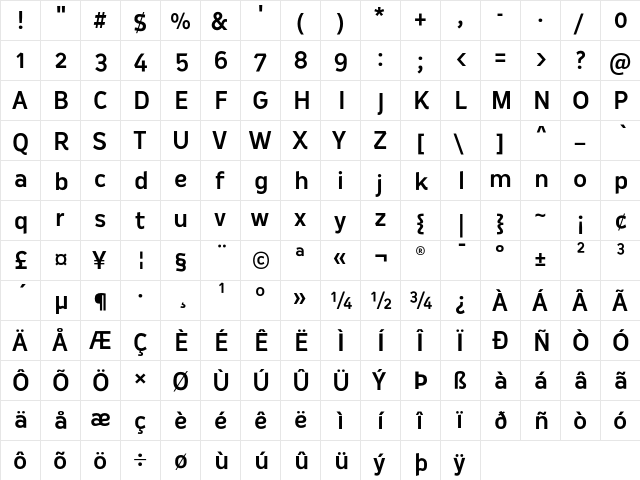
Oceania-Medium Regular
Design Context for Oceania-Medium Typeface
Oceania-Medium takes a measured approach to typography — its balanced proportions and neutral character make it a reliable workhorse for both digital and print work.